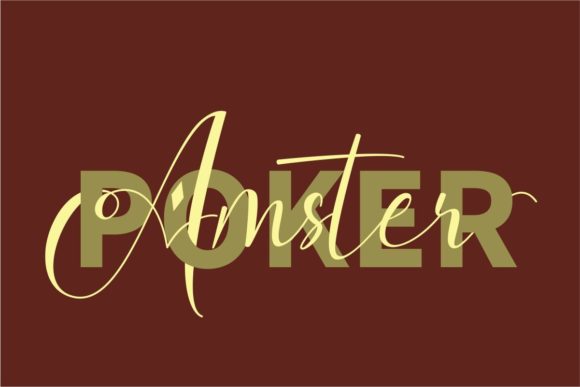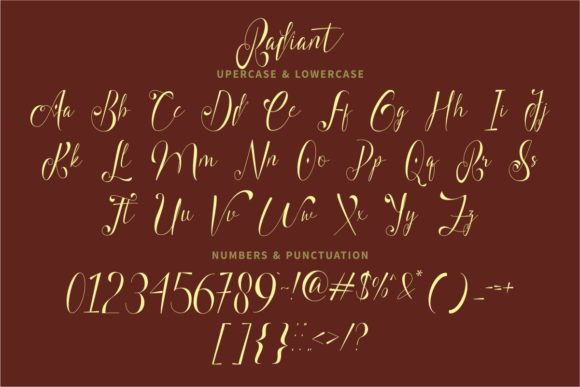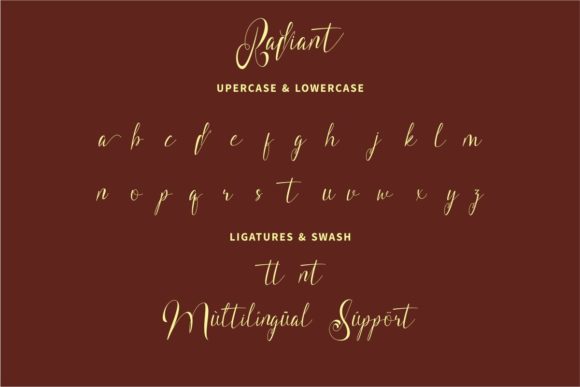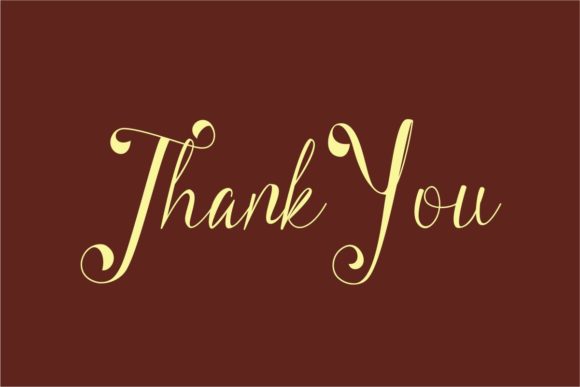
Radiant Font
About Radiant Font
Radiant is a beautiful light handwritten font that exudes a unique feel and creates a stunning impact. It effortlessly adds a touch of luxury to any design project you wish to create. With its PUA encoding, accessing all the amazing glyphs and ligatures is a breeze, allowing you to unlock the font’s full potential.
Radiant’s light and graceful letterforms bring a sense of elegance and sophistication to your designs. Its handcrafted appearance adds a personal touch, creating a beautiful and organic aesthetic. Whether you’re working on invitations, branding materials, packaging, or any other project, Radiant font brings a luxurious spark that elevates the overall look and feel.
One of the standout features of Radiant is its wide range of amazing glyphs and ligatures. With easy access to these special characters, you can enhance your designs with decorative flourishes, unique letter combinations, and creative typography. This font offers endless possibilities for customization, allowing you to create truly remarkable and one-of-a-kind designs.
Radiant is versatile and adaptable, making it suitable for various design contexts. It enhances the visual appeal of fashion and beauty brands, editorial layouts, wedding stationery, and much more. Its stunning impact and luxurious charm make it a valuable asset for designers seeking a touch of elegance.
In summary, Radiant is a beautiful light handwritten font that adds a unique feel and a stunning impact to any design project. With its PUA encoding, you can easily access the amazing glyphs and ligatures, expanding your creative possibilities. Embrace the luxury of Radiant and let it shine in your designs, creating truly captivating and unforgettable visuals.